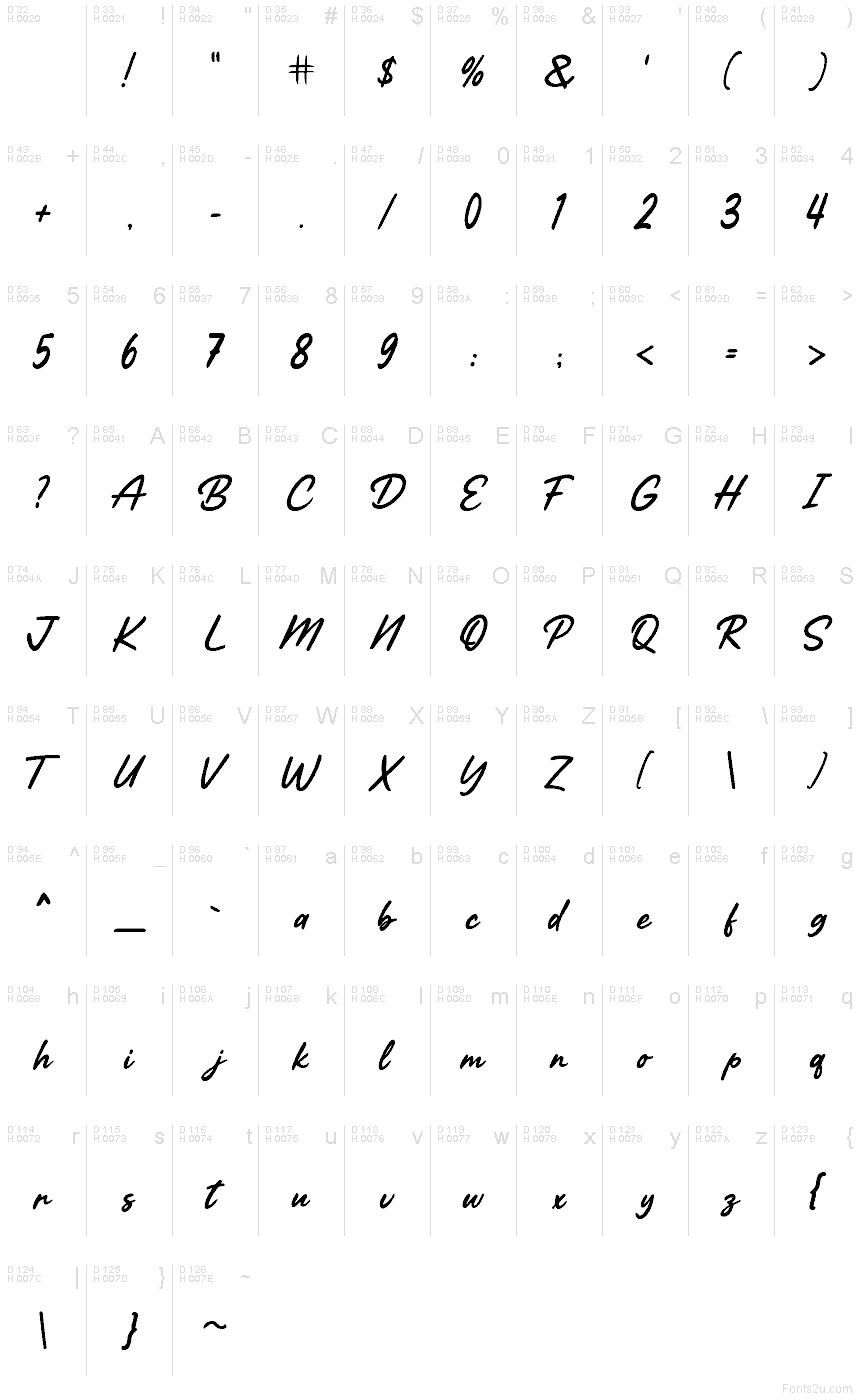
Orchidea Couture
Orchidea Couture font by BlackFridayFont FMF is a free handwritten script font. Its satin-smooth strokes and lively slant feel like fresh ink pulled in one confident motion, giving logos and headlines an instant couture gloss. The rhythm stays even and readable, with compact curves that tuck neatly into tighter layouts while still looking lush and expressive.
Using Orchidea Couture, you’ll elevate fashion logos, beauty packaging, boutique signage, social media promos, wedding suites, product labels, and watermark signatures. This free font shines when set large with tight spacing and generous white space. For balance, pair it with a clean geometric sans to handle body copy and small details.